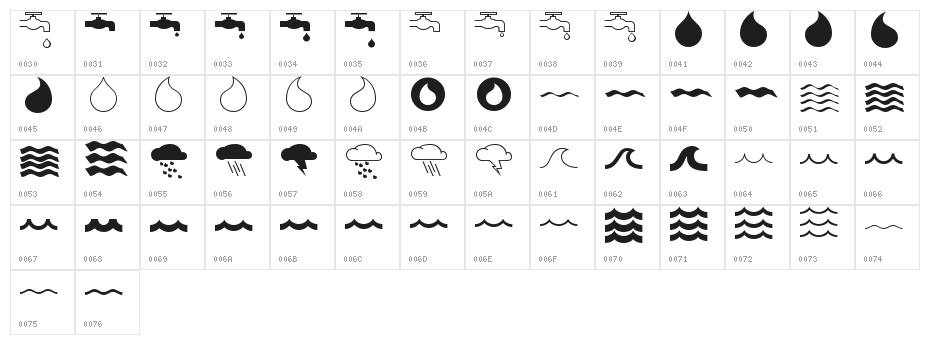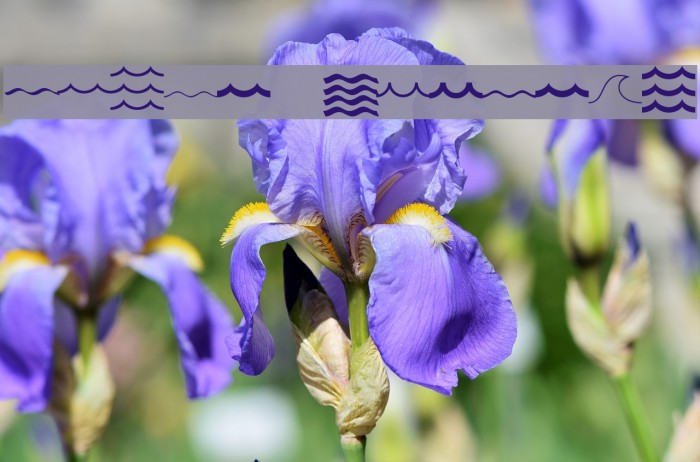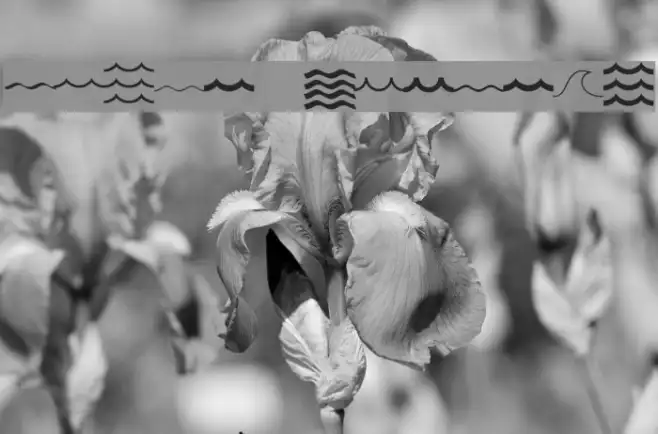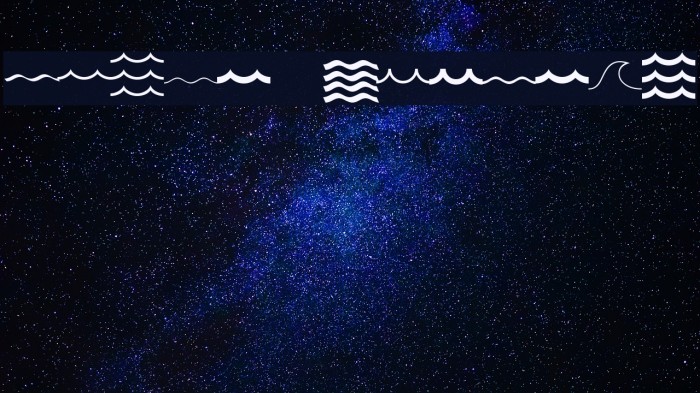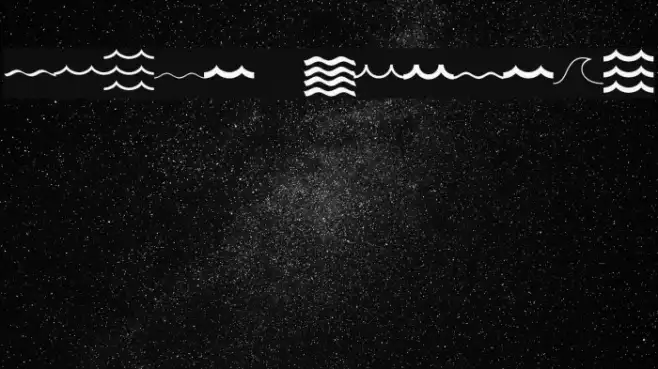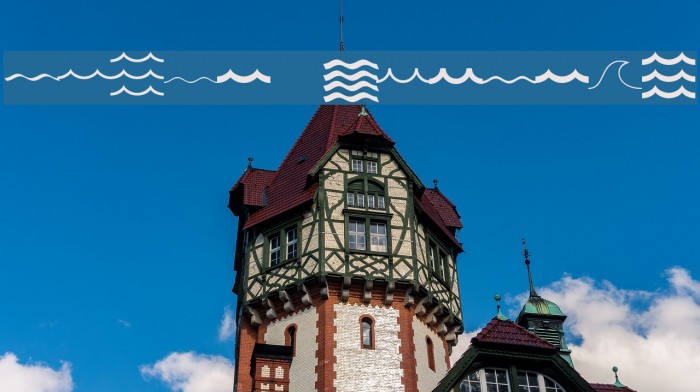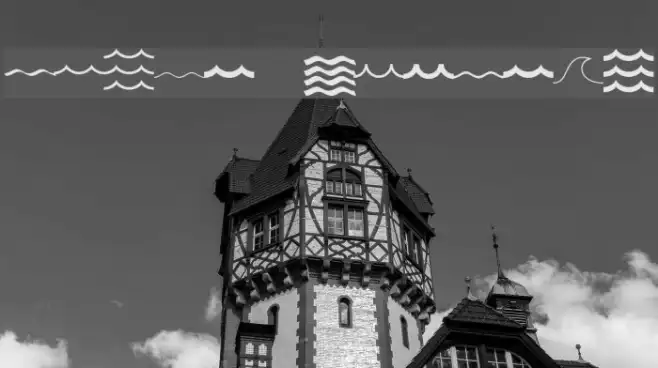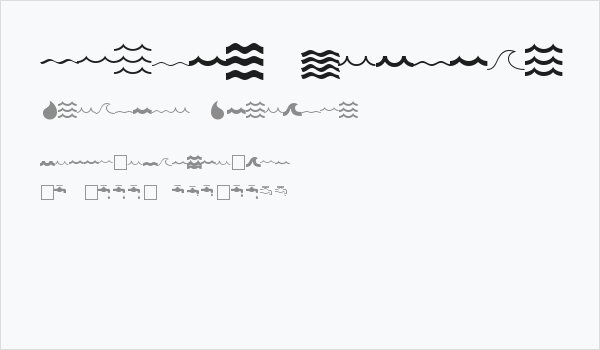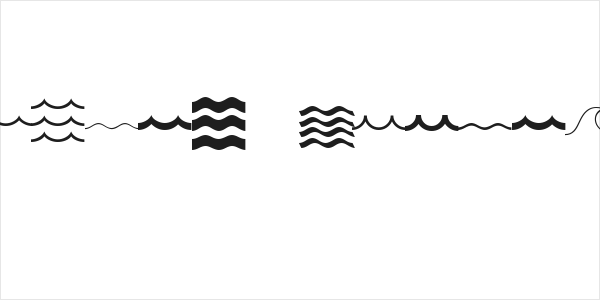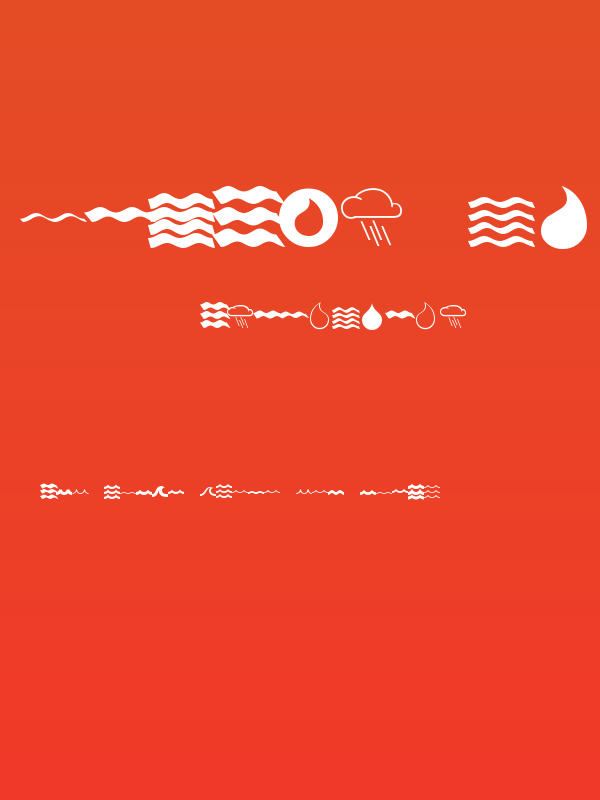
A decorative dingbat font featuring water-themed icons such as droplets, waves, clouds with rain or lightning, faucets with drops, and outlined squares. The glyphs are a mix of solid and outlined styles, with consistent line thickness and playful, illustrative forms.
| Overall Style | Decorative, Playful, Thematic |
| Use Case | Icons, Infographics, Thematic headings, Visual accents |
| Proposed Projects | Infographics, environmental posters, educational materials, weather apps, water conservation campaigns, icon sets. |